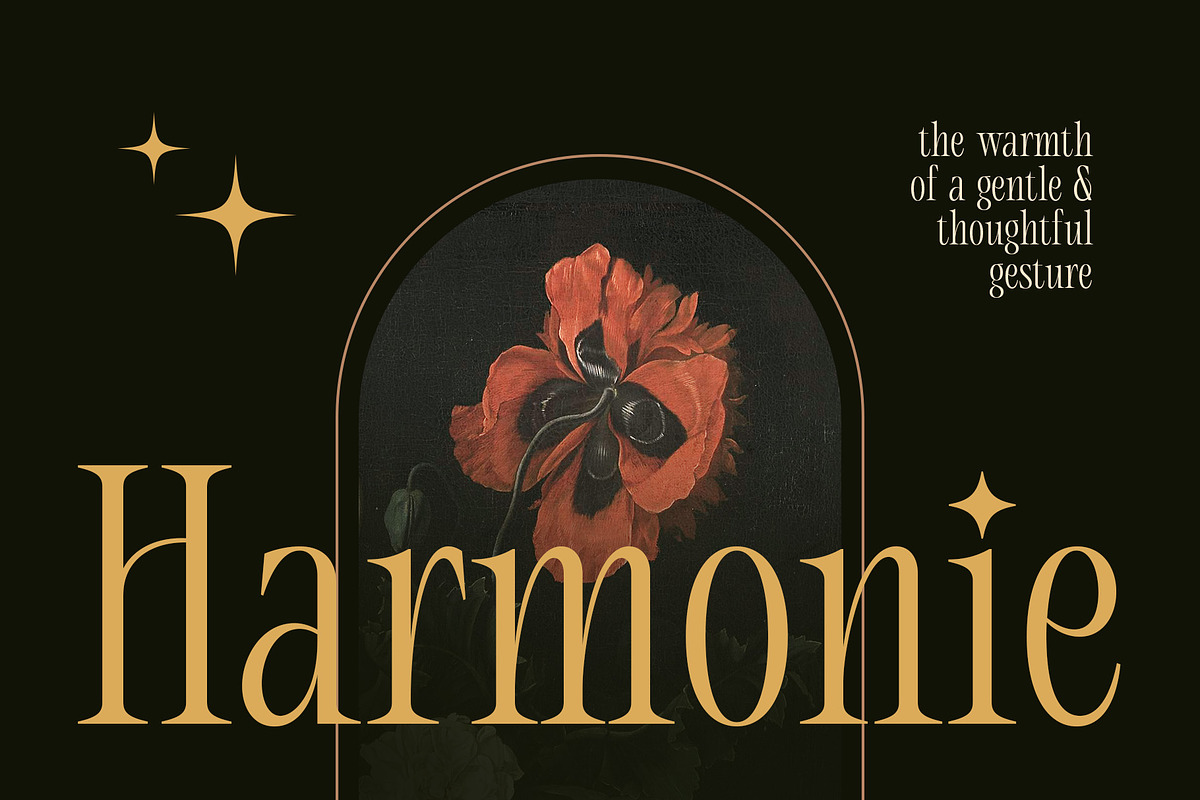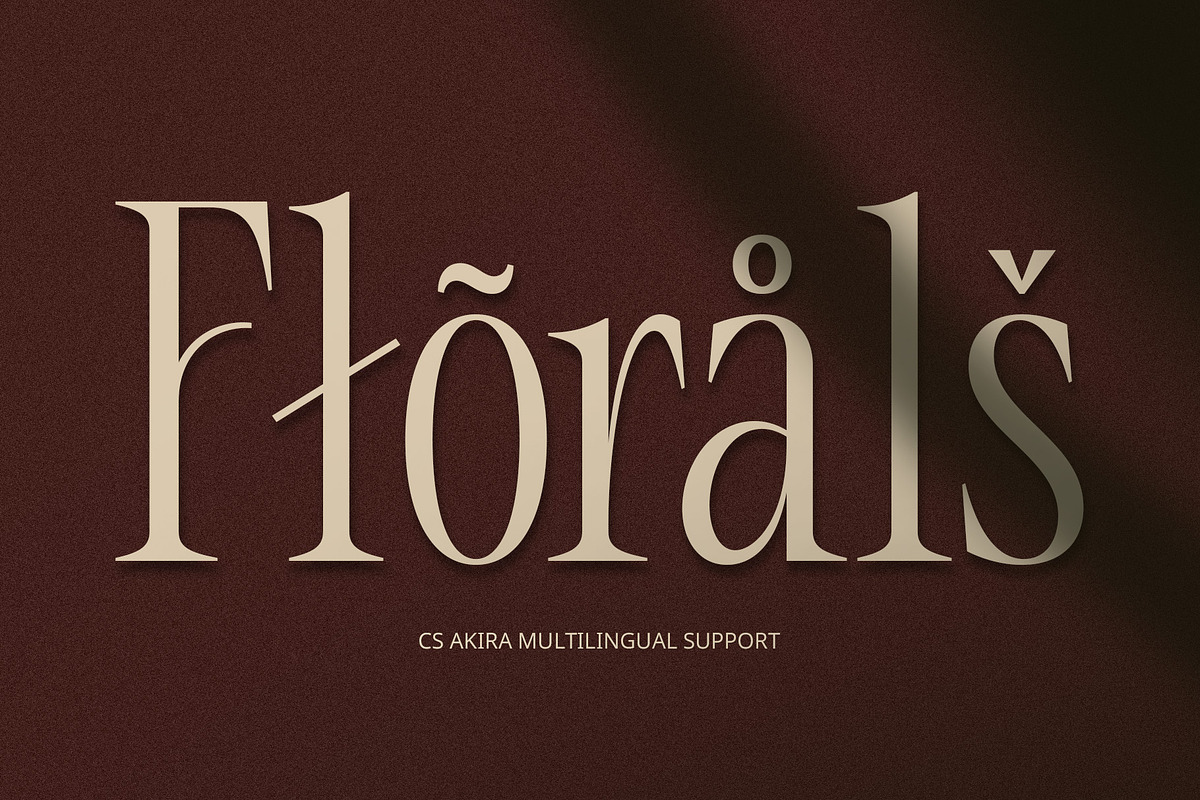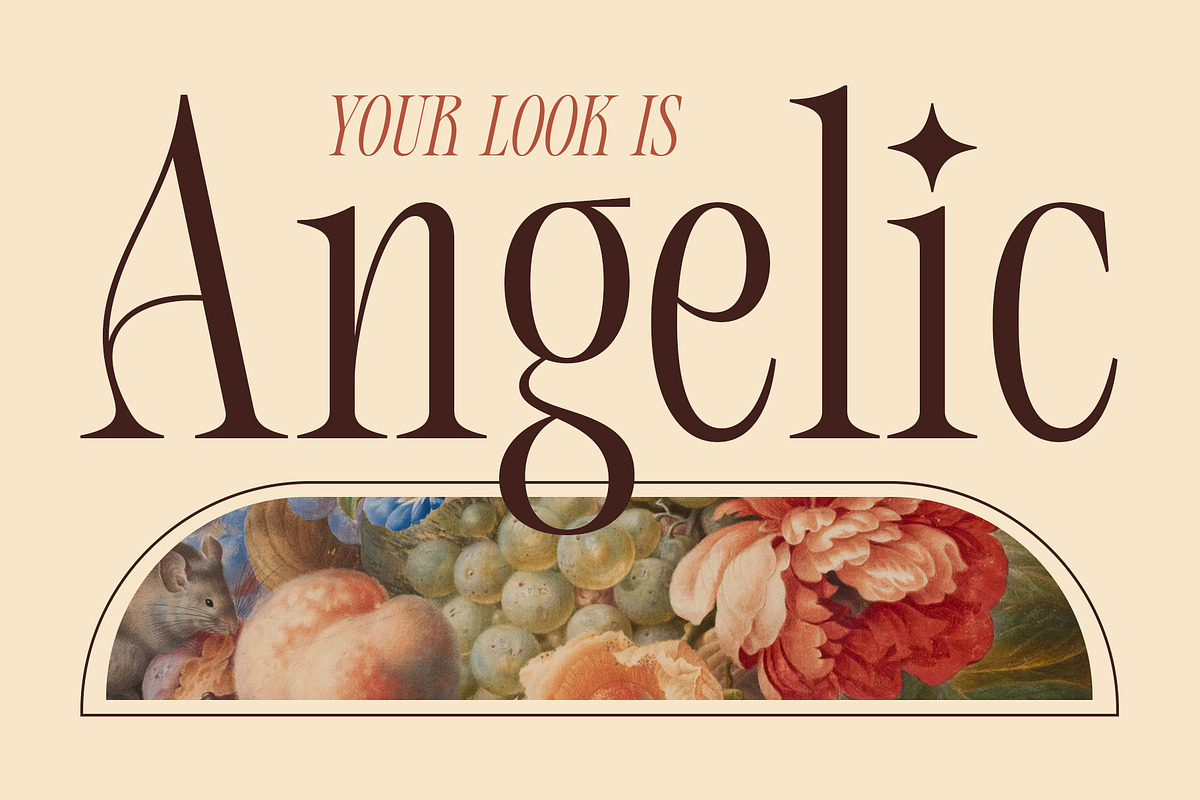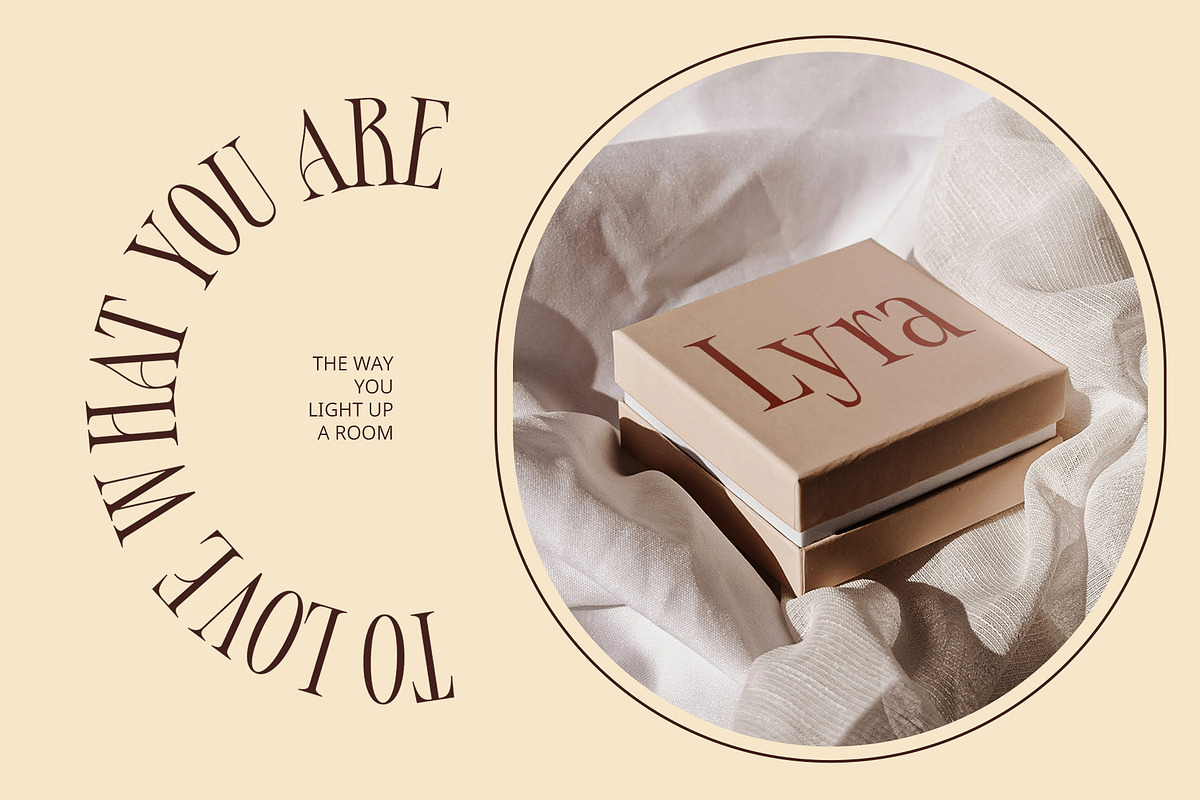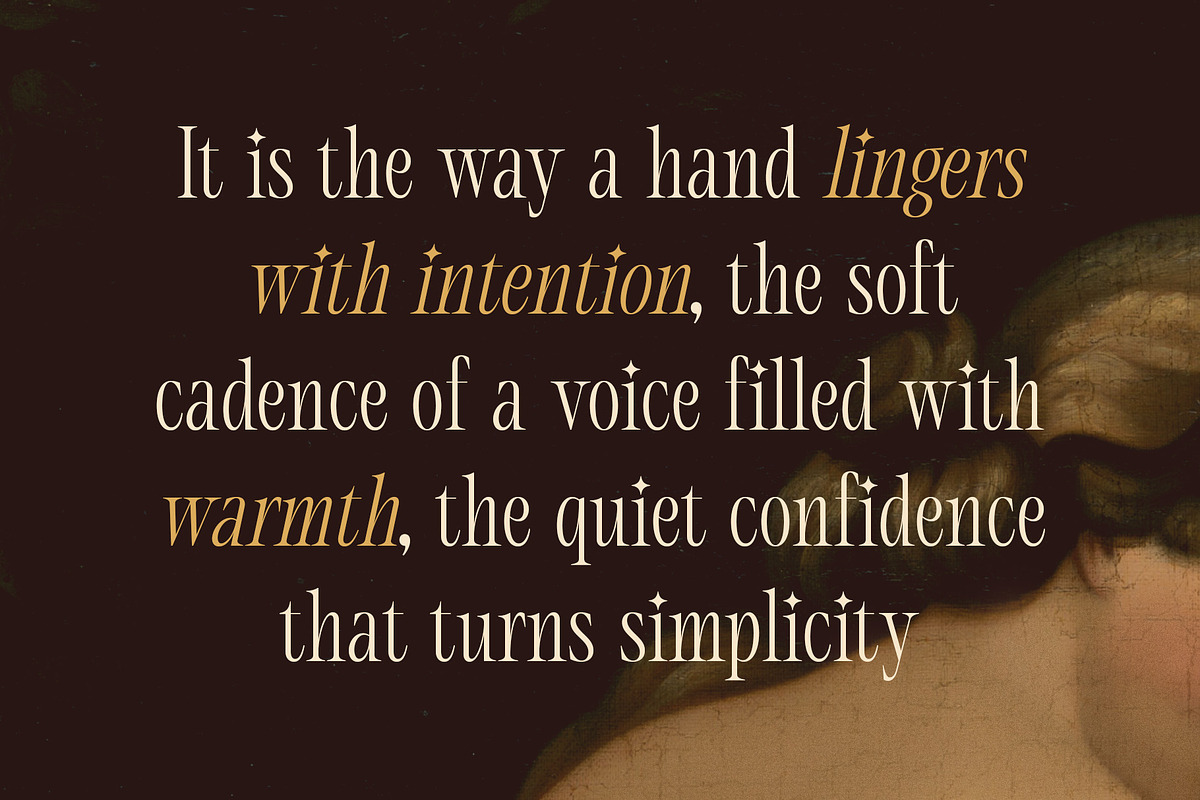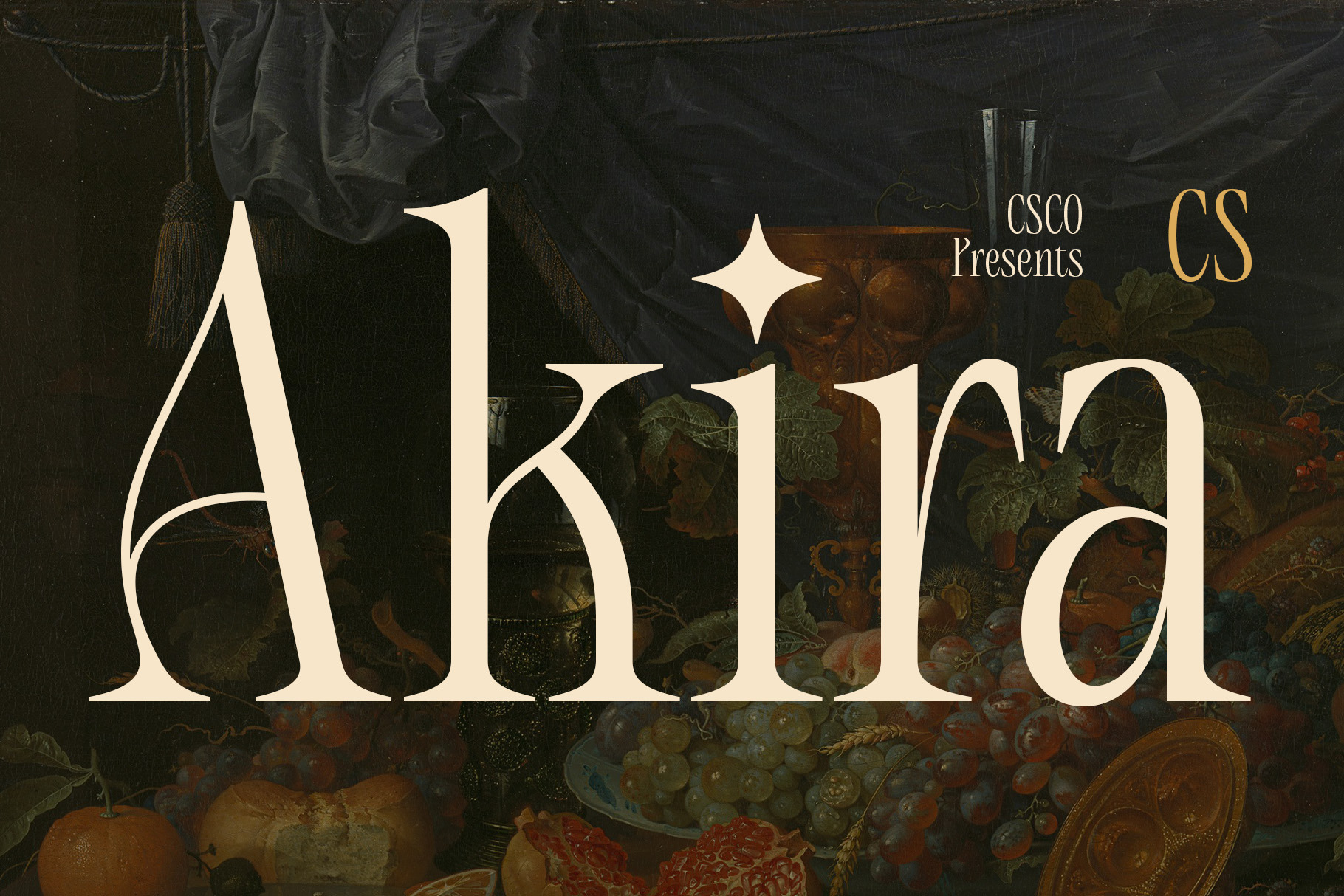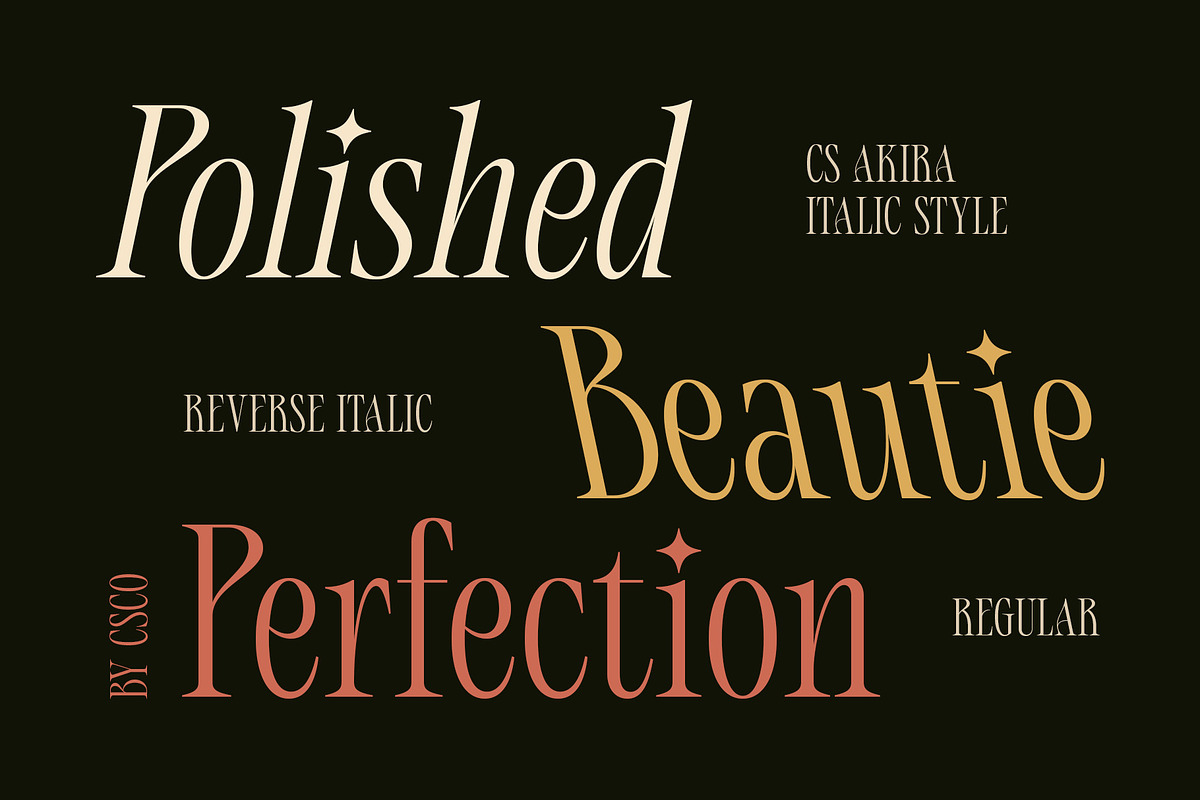
CS Akira – Stylish Font
CS Akira – Stylish Font of Understated Elegance
Minimalist and Elegant Serif Design CS Akira is a modern serif font that features a clean, minimalist structure paired with stylish sophistication. Designed with precision and balance, its letterforms are smooth and confident, creating an elegant impression without appearing overdone. It strikes the perfect harmony between simplicity and flair, allowing it to adapt effortlessly to both contemporary and classic visual aesthetics.
Timeless Aesthetic with a Contemporary Edge While rooted in classic serif traditions, CS Akira brings a fresh, contemporary twist through its crisp angles and refined proportions. Its modern elegance makes it ideal for brands and layouts that seek a balance between heritage and innovation—suitable for fashion lookbooks, magazine spreads, and premium lifestyle branding.
Designed for Clarity and Character With its smooth stroke modulation and thoughtful spacing, CS Akira maintains excellent legibility across sizes and mediums. Whether used in large headlines or elegant body text, its visual clarity enhances readability while its graceful personality ensures your message leaves a stylish impression.
Ideal for Premium Visual Projects From editorial layouts and luxury packaging to branding identities and digital campaigns, CS Akira elevates design with its poised and aesthetic charm. The font’s understated luxury makes it a versatile choice for designers who want to communicate refinement, taste, and professionalism in their work.
- CS Akira Regular
- CS Akira Italic
- CS Akira Reverse Italic